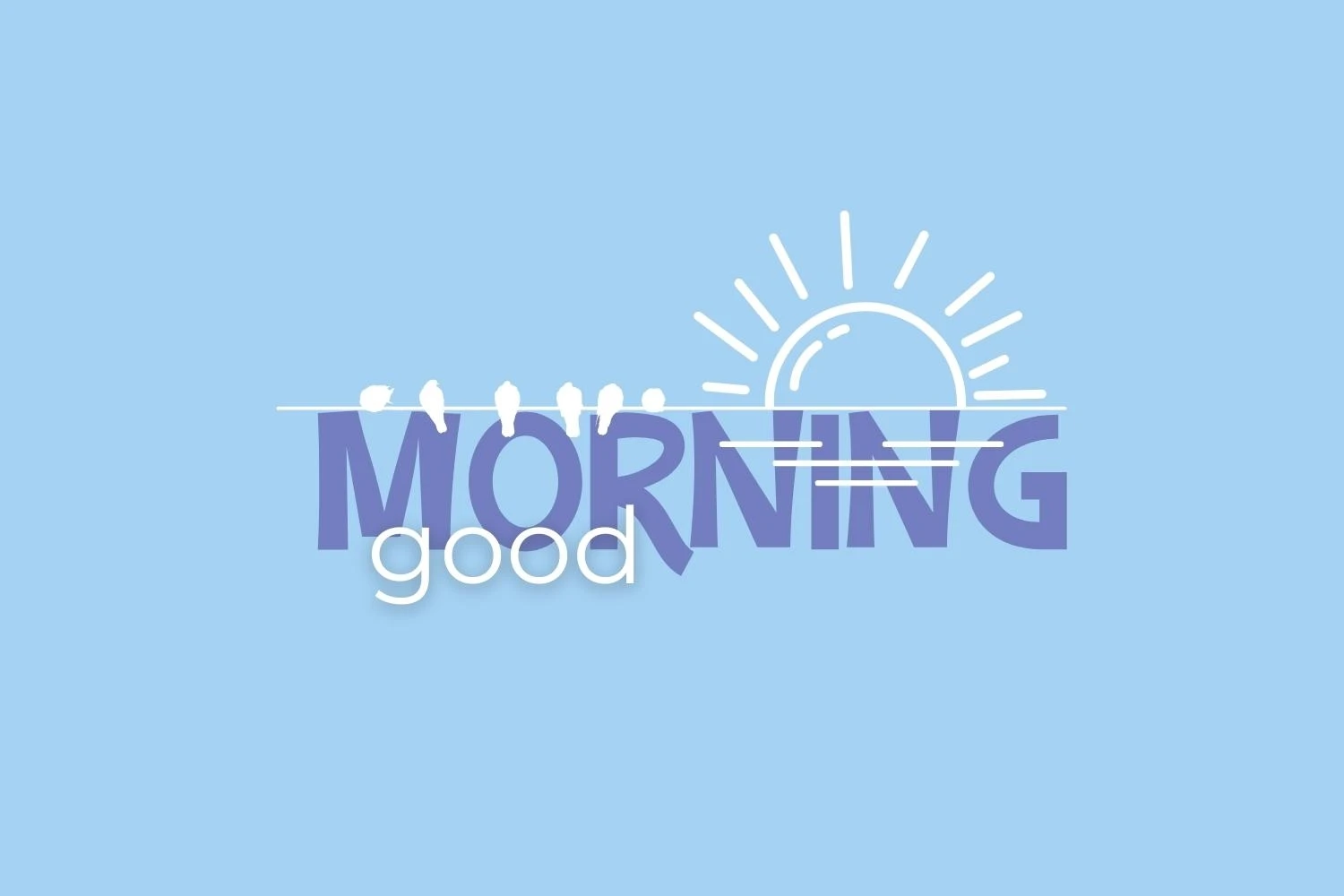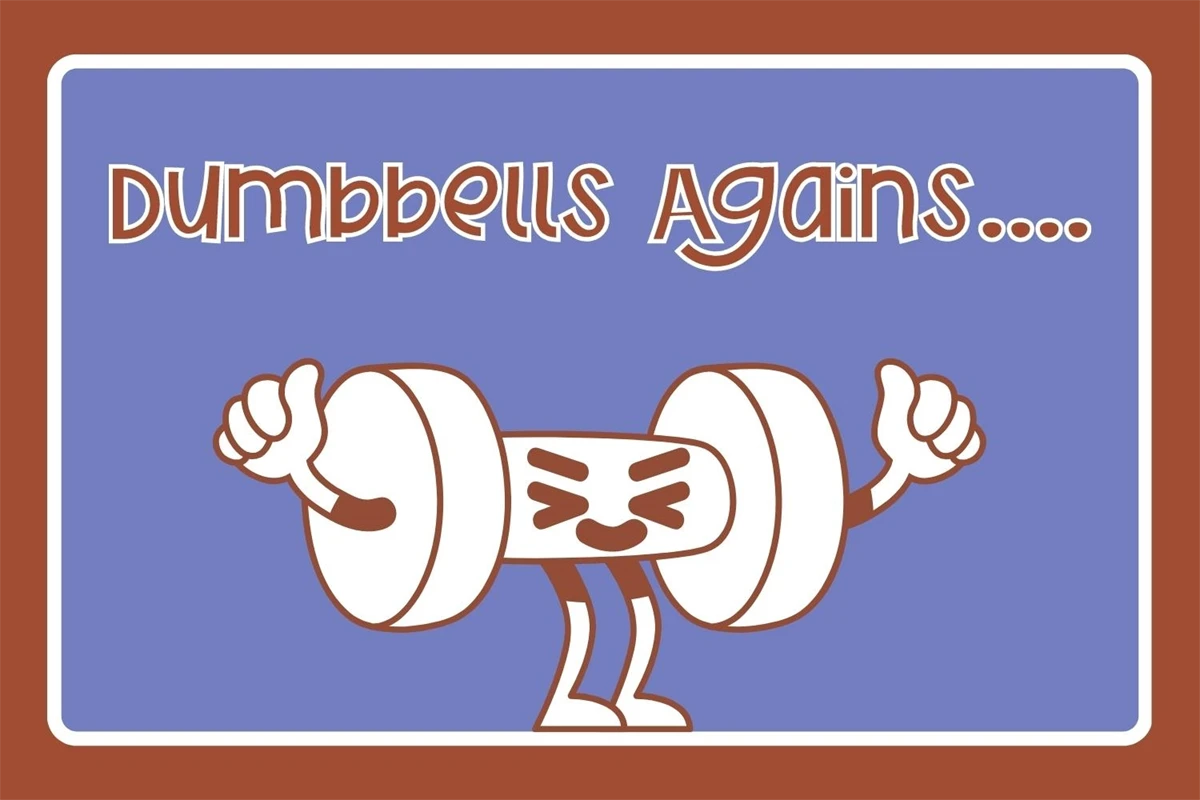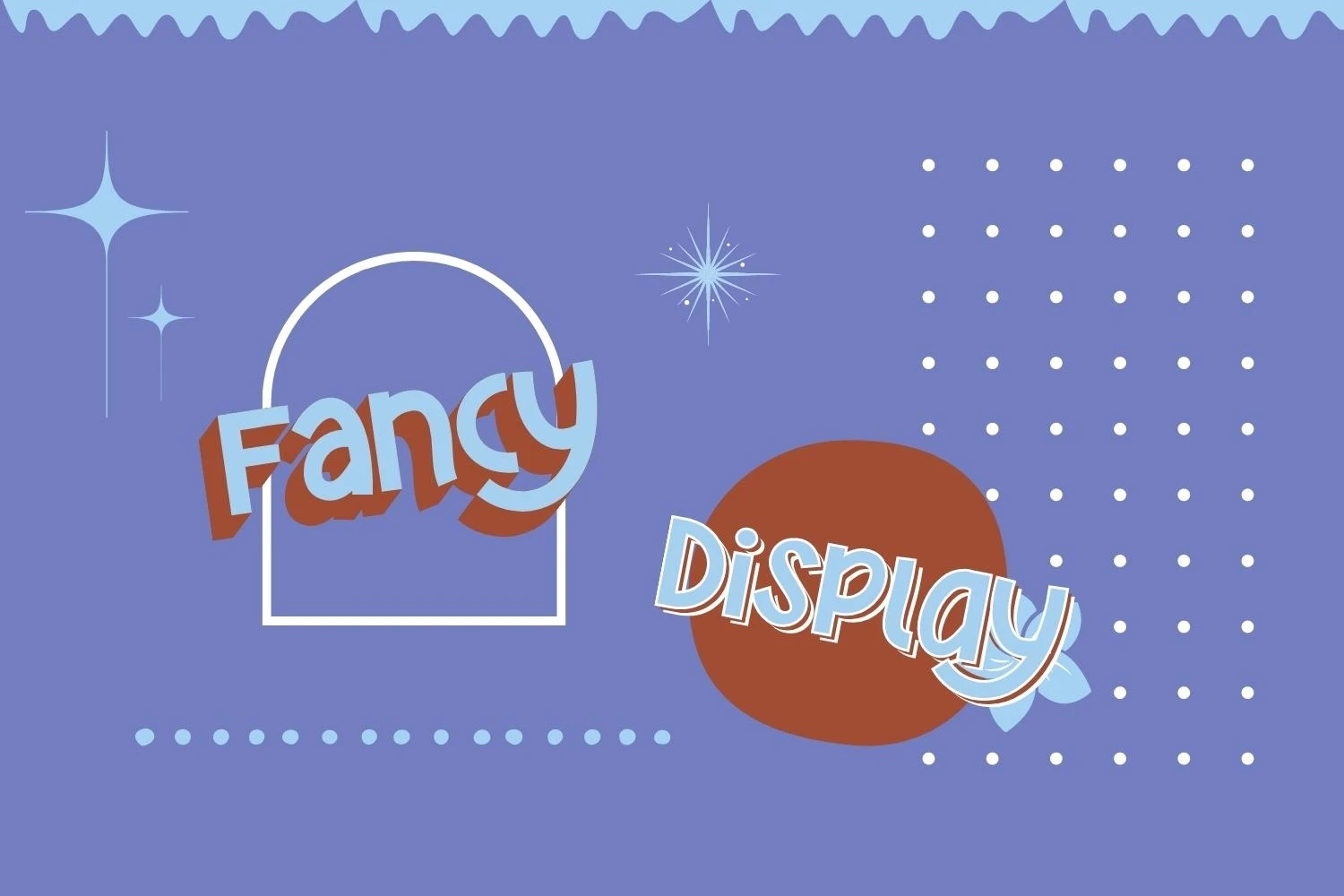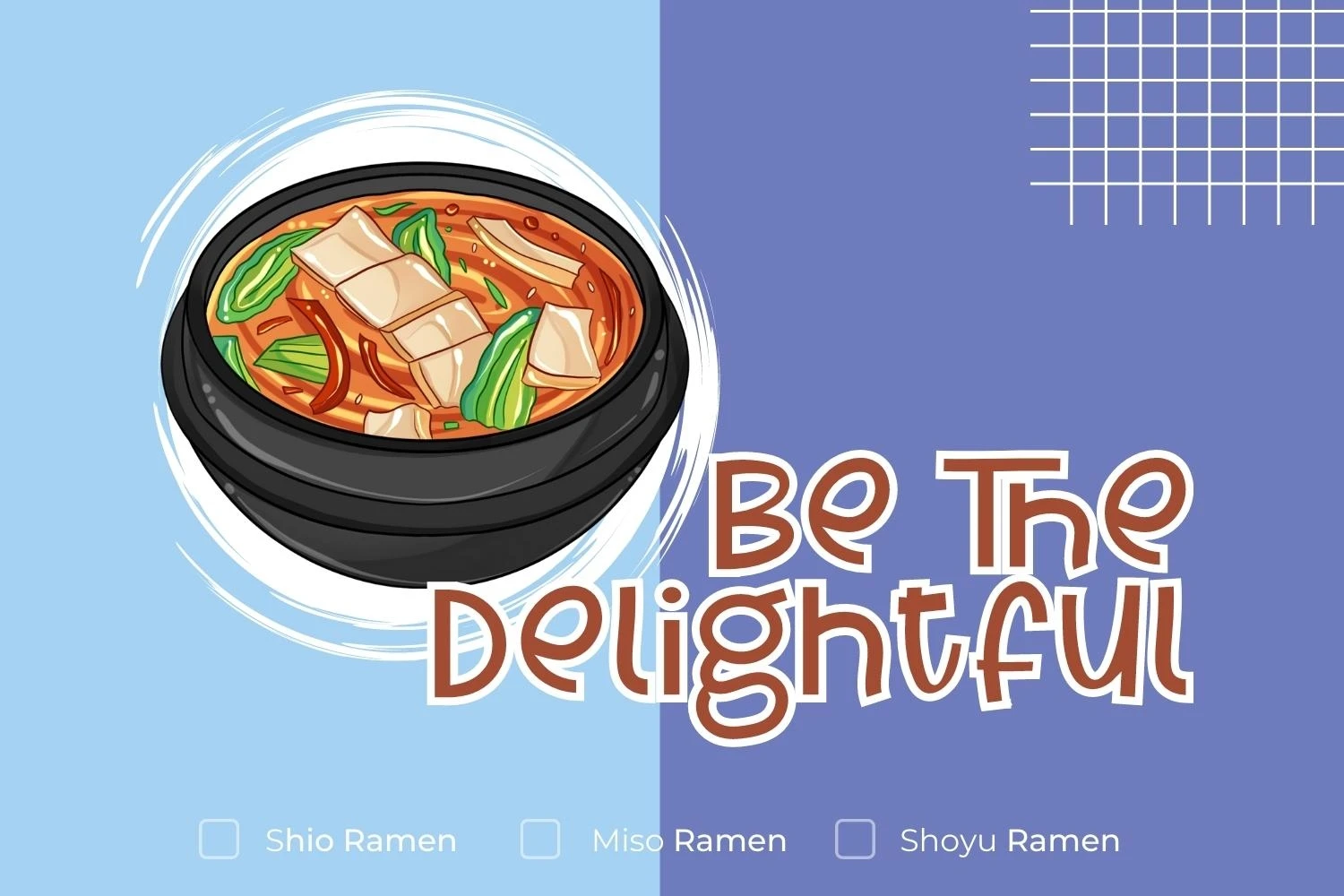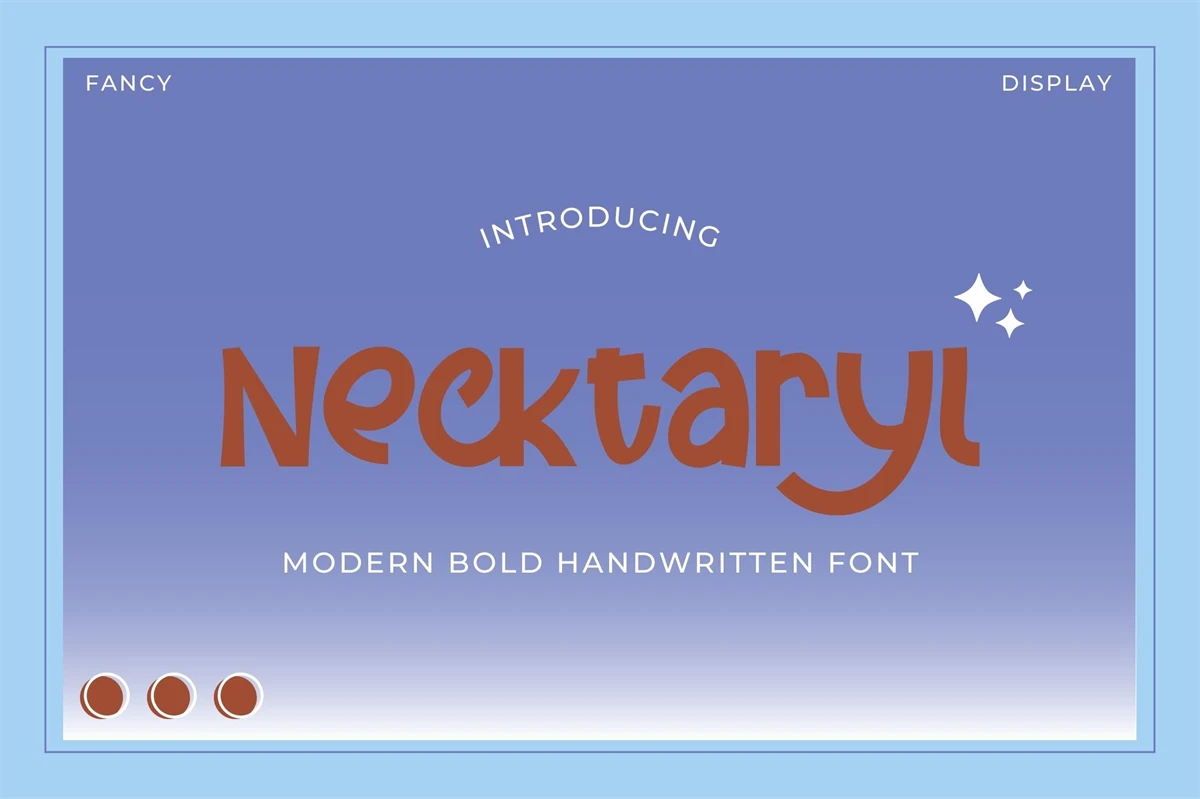
**Necktaryl - Modern Bold Handwritten** with a calligraphy style, So beautiful on invitations like greeting cards, branding materials, business cards, quotes, posters, and more!